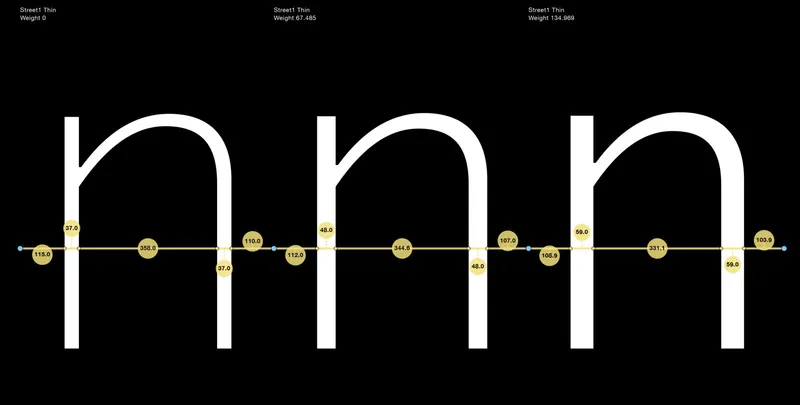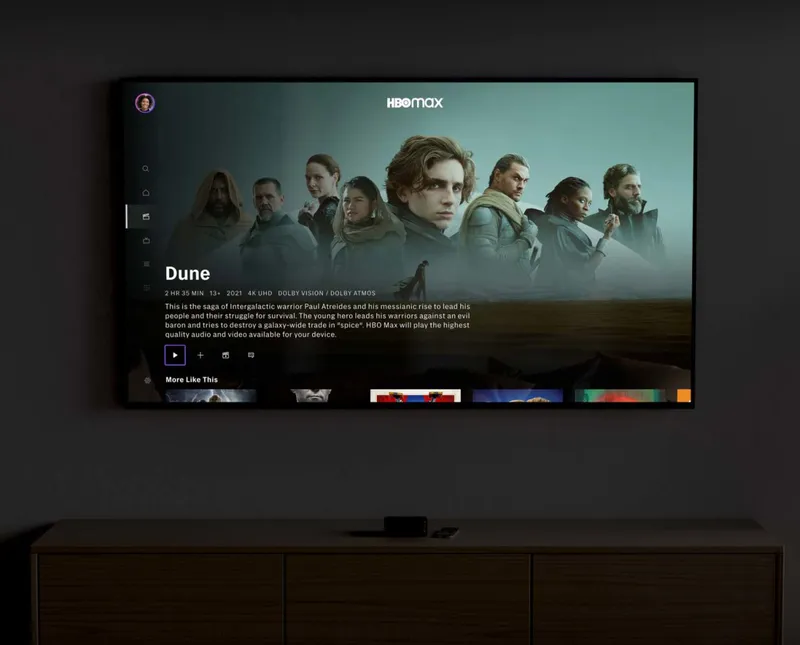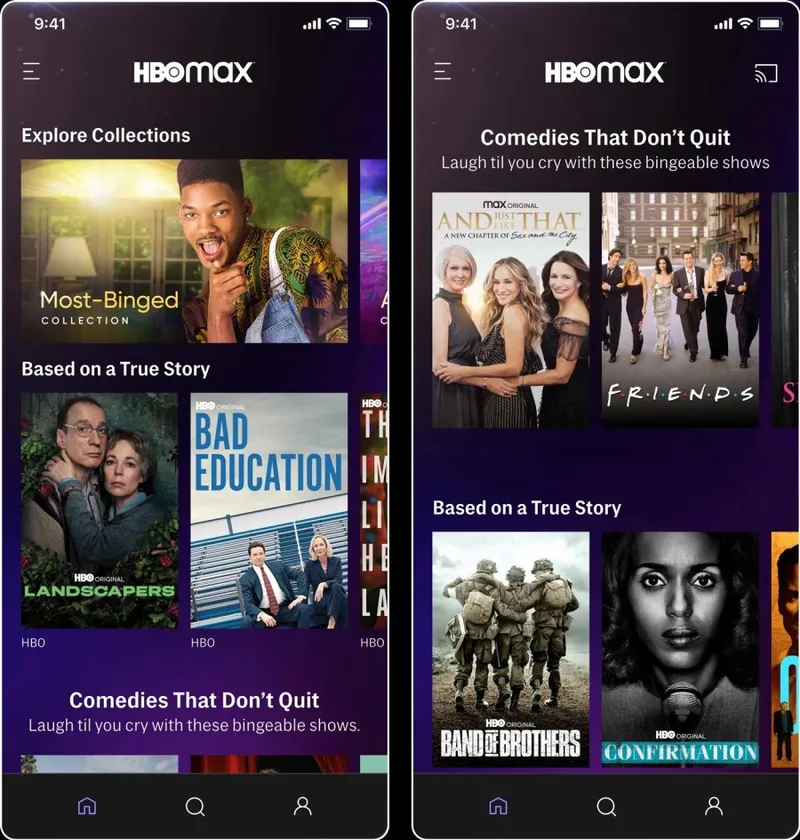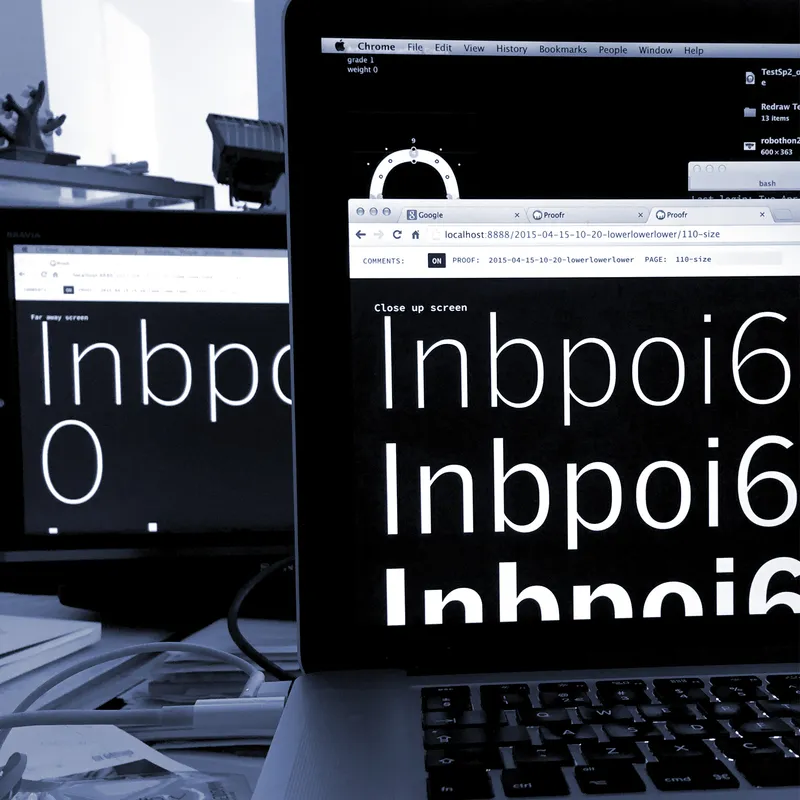
Street: a screen-first typeface for HBO’s premium interfaces
Shimmer! Different rasterisers and pixels superimposed.
Premium streaming and broadcast service HBO is available on a variety of devices with an array of typographic requirements. From the large but low-resolution TV screen across the room, to the crystal-clear but narrow phone in your hand.
Together with Carvalho-Bernau, LettError developed Street, a custom family of screen-first, graded typefaces. At home on a wide range of screens and platforms, from the living room to mobile, Street provides high quality typographic versatility and brand coherence for a myriad of display technologies.
Premium streaming and broadcast service HBO is available on a variety of devices with an array of typographic requirements. From the large but low-resolution TV screen across the room, to the crystal-clear but narrow phone in your hand.
Together with Carvalho-Bernau, LettError developed Street, a custom family of screen-first, graded typefaces. At home on a wide range of screens and platforms, from the living room to mobile, Street provides high quality typographic versatility and brand coherence for a myriad of display technologies.
When HBO recognised that the typeface system they were using was no longer suited for the new and ever more complex tasks ahead, they asked us to help them understand and solve the challenges of highest quality typography across a diverging device landscape.
Overseen by Director of Digital Products Ryan Wilkerson, and in close collaboration with HBO’s digital designers James Catel and Rob McMurray, we focused on brand expression and consistency. Especially the typographic and technical challenges that come with all the different platforms on which HBO has a presence.
In 2021, we were asked to extend the typeface with Cyrillic and Greek scripts under the direction of HBO Max’s Dave Curry and his amazing team. The script extensions were drawn by Ilya Ruderman and Irene Vlachou, respectively.
Street adds European precision and sophistication to the popular American Gothic genre of typefaces. The typeface expresses HBO’s brand values: an accessible but premium experience, while the genre’s ubiquity makes sure that it is “invisible” enough to never compete with HBO’s premium content.
The design takes many cues from the great American classics by Morris Fuller-Benton, particularly his Lightline Gothic, Monotone Gothic and of course Franklin Gothic, as well as the flat-sided shapes of Jackson Burke’s Trade Gothic.
That said, HBO Street is not a revival. Rather than adapt a visual language optimised for print technology, Street was designed and tested on screen from the very first sketch to the final proof. The very real and complex requirements, both functional and aesthetic, dictated the final design.
American Typefounders’ Lightline Gothic, Morris Fuller-Benton, c. 1908 (magnified from a 10pt showing)
Linotype Trade Gothic, by Jackson Burke, c.1945.
Drawings for an early stage of Street which established the vertical and horizontal proportions, relative weights and contrast, c. 2015.
Variable fonts deliver weight and grade variations in a single file.
Can you see the difference between the columns?
Comparison of grades in Street Thin: -11 and +11 units. These values were established after tests with different screens and viewing distances.
Because HBO is at home on many different platforms, with different screens and resolutions, rasterizers and viewing distances, we took great care to make sure the user experience is consistent and reliable across the board. The typography in the titles, menus and bios must be consistent regardless of rendering technology or resolution. With normal typefaces, text that looks great on one platform can render too heavy or too thin on another.
HBO Street offers grades to balance the rendered results on different screens: every weight has a lighter and a darker variant. A heavier grade can be deployed for environments that render text lighter (such as Microsoft and Chromium-based platforms), and a lighter grade can be used for platforms where text is rendered heavier (hello, AppleTV!)
Within each weight, the grades have identical metrics and kerning: there will be no text reflow when switching between grades.
The HBO Street LCG Family
HBO Street comes in 4 weights × 3 grades (or as a variable font with weight and grade axes), including italics, small caps, extended Latin, Greek and Cyrillic character sets, arrows, lining and small cap numerals (each in lining and tabular variants) and special number fonts, you name it. HBO Street is pretty complete.